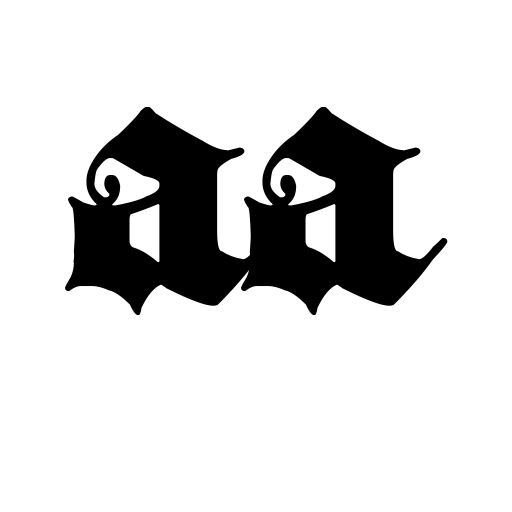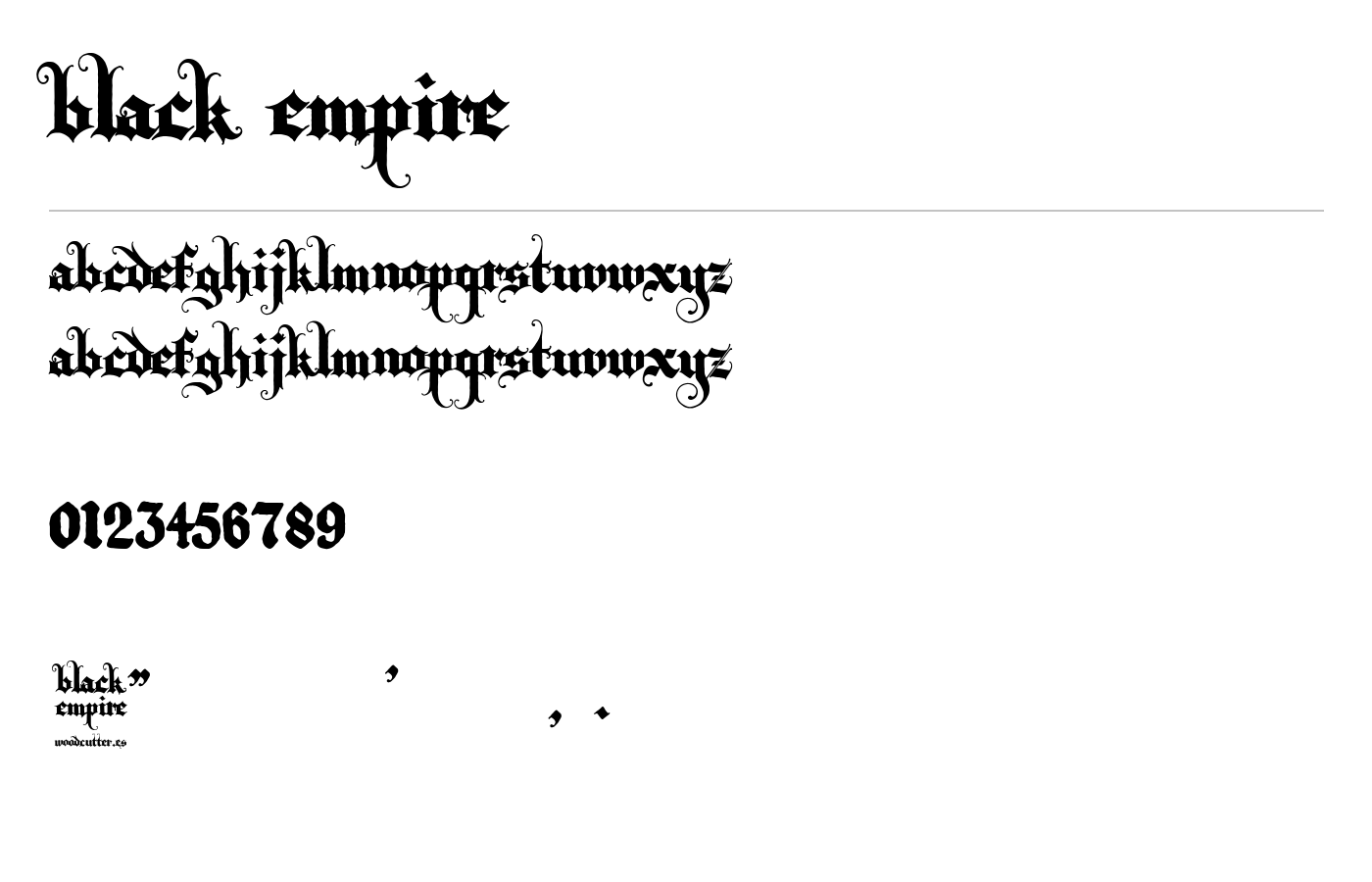
Black Empire is a bold, ornate blackletter font characterized by its sharp, angular strokes and decorative flourishes, lending it a gothic and vintage feel. Its condensed letterforms and high contrast between thick and thin strokes make it an excellent choice for impactful headlines, logos, or branding that requires a dramatic, old-world character with a strong visual presence. This font is ideal for designs in fashion, music, or entertainment where a historic, edgy, and sophisticated tone is desired.
Black Empire Font
About Black Empire Font
| Designer | Jordi Manero Pascual |